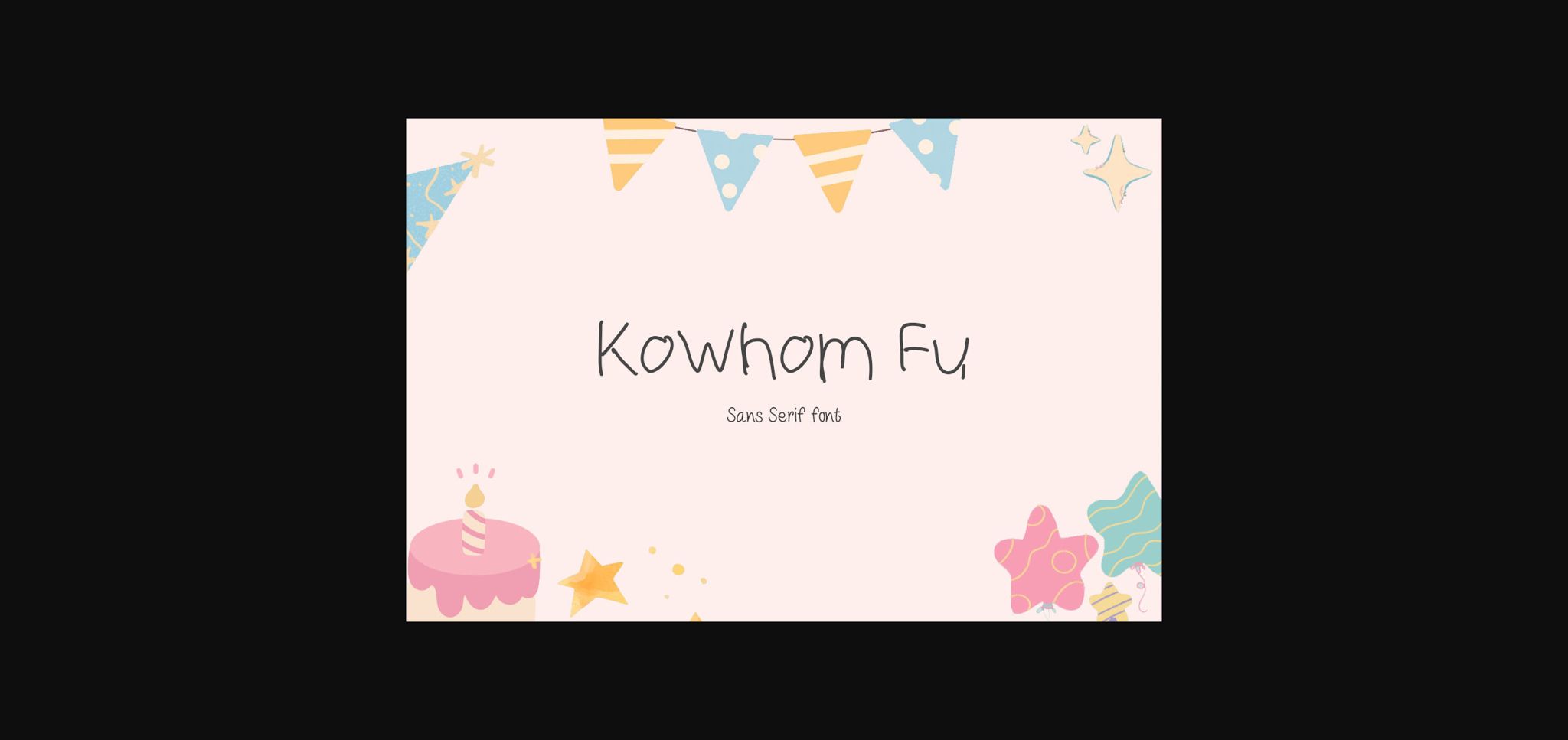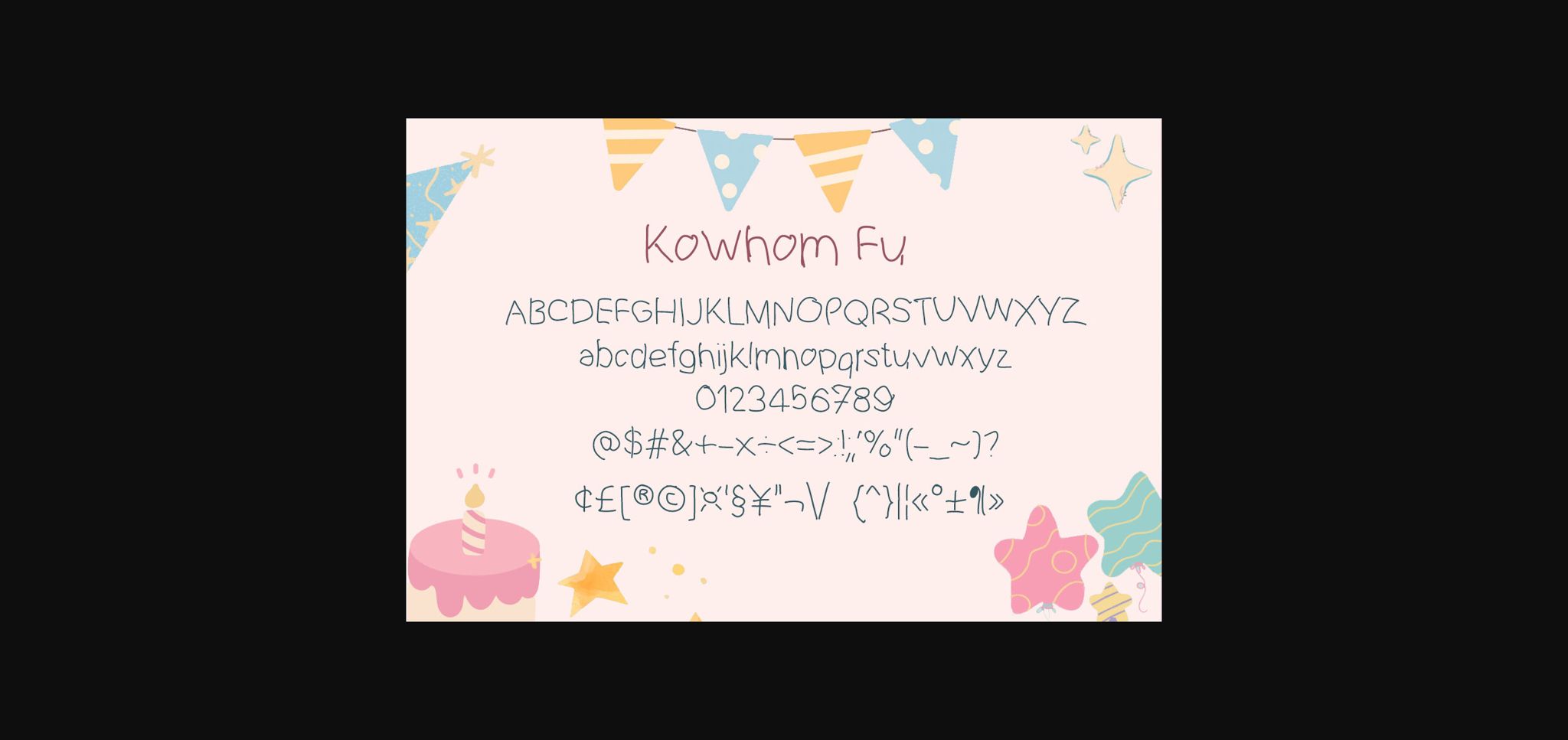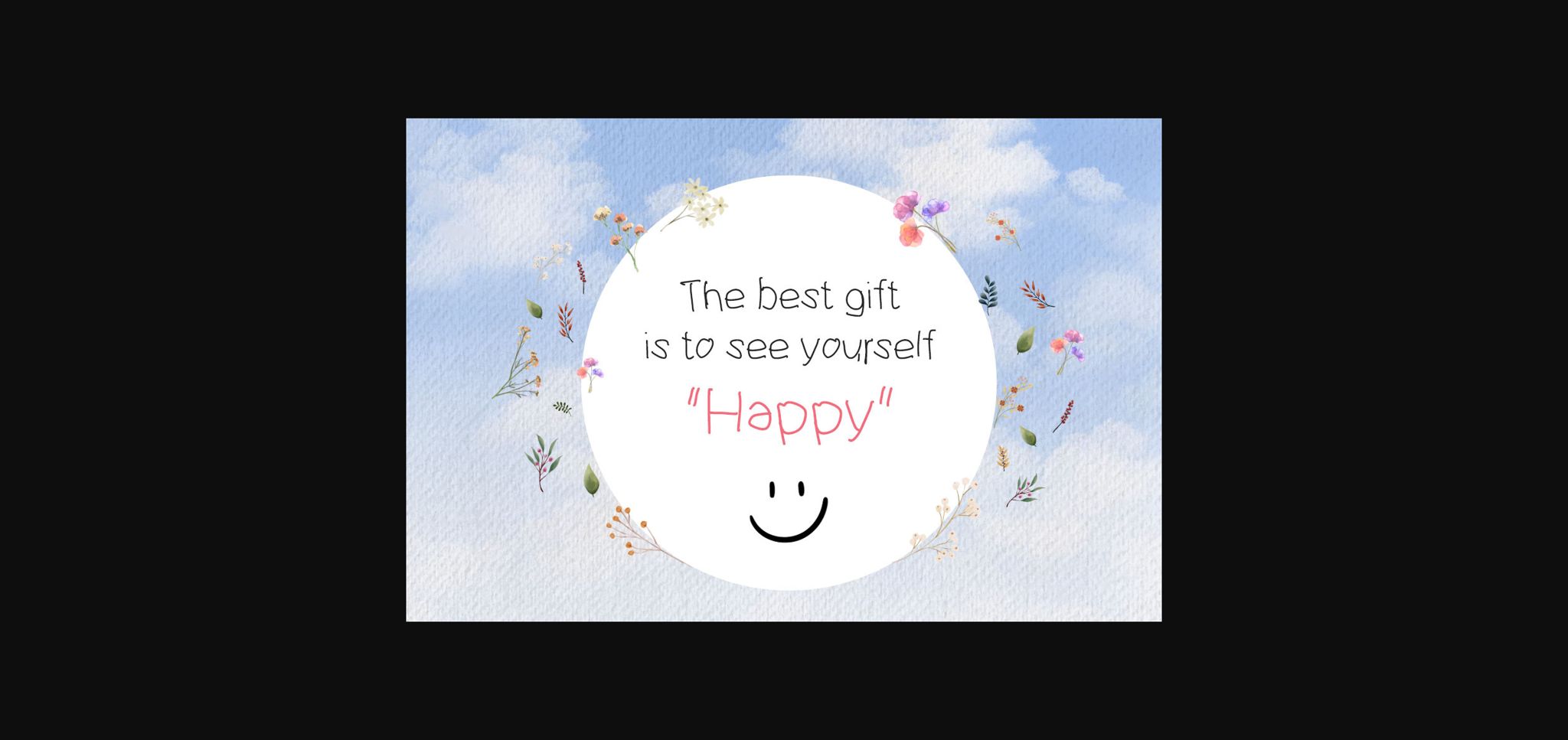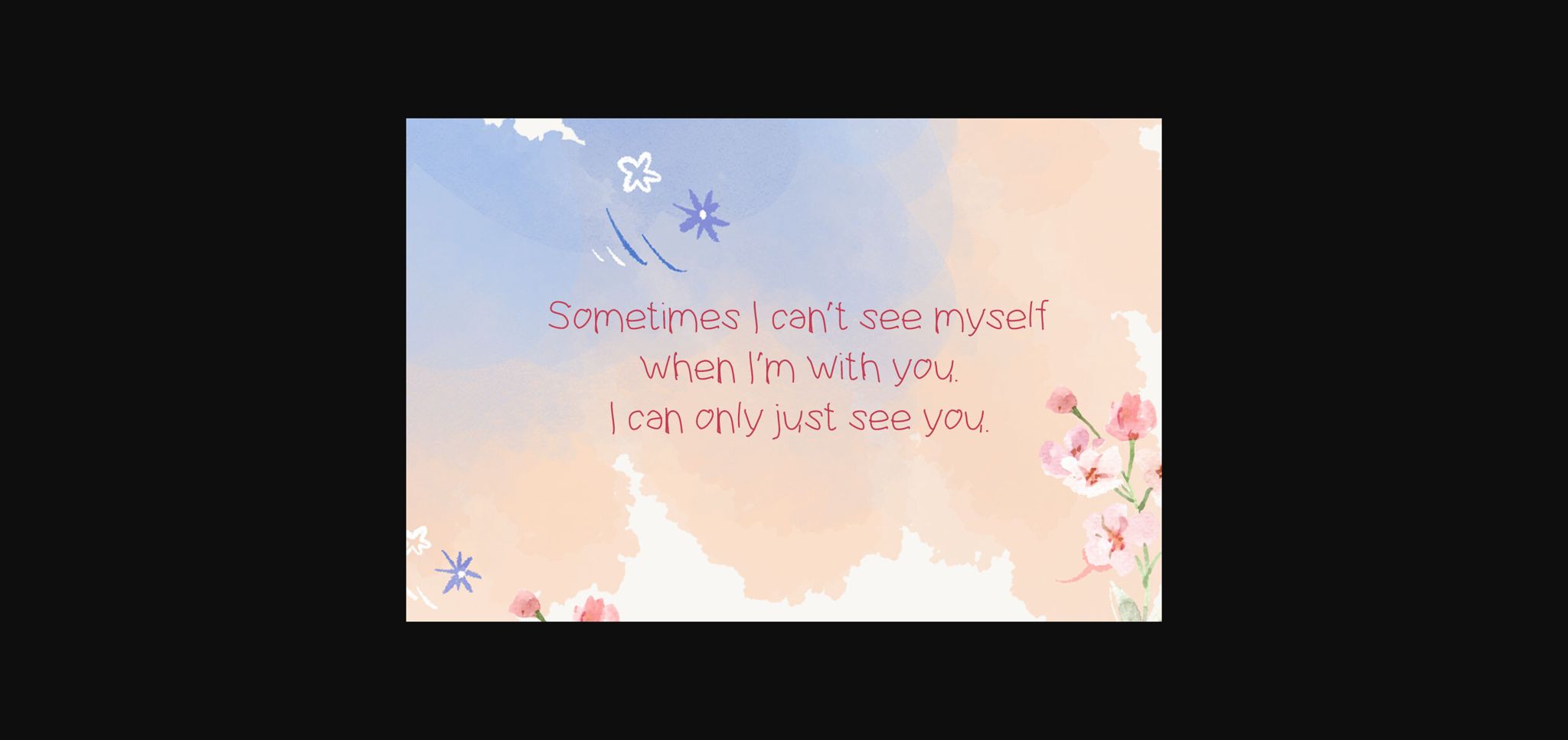
About Kowhom Fu Font
Kowhom Fu is cute, playful and a quirky children’s handwriting font. It has a unique style and unusual look that makes it more interesting. It would be great for any fun project or the creations, diary planner, on children themed designs, thank you cards, quotes, greeting cards, logos, posters, blogs, bags, t-shirts, clothing and other designs.